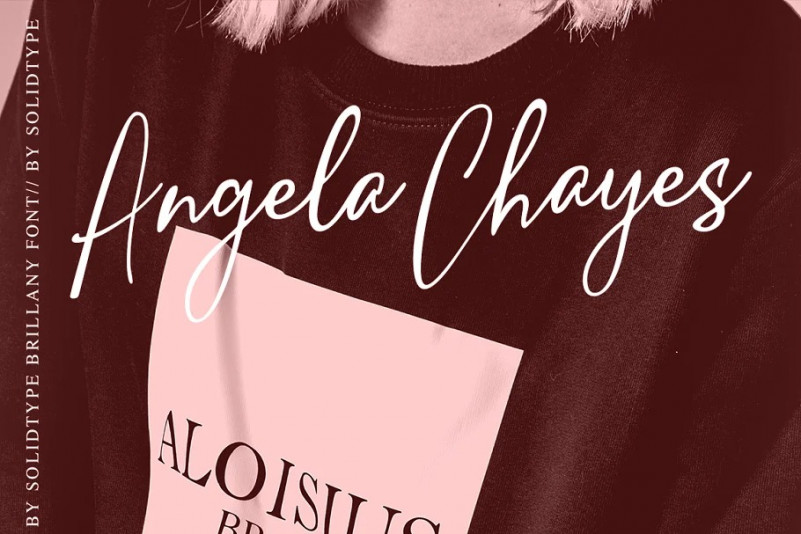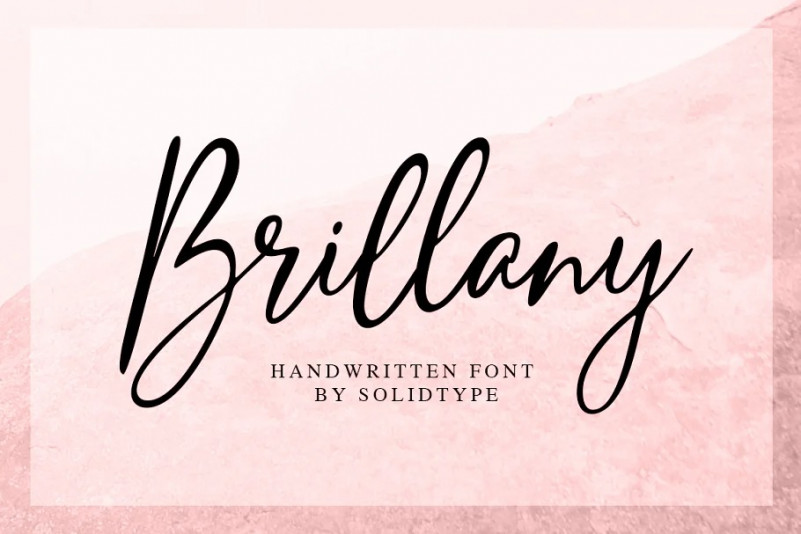
Brillany Font
Brillany Script Font is a simple handwritten script font, modern and fashionable. This elegant font is legible and looks great as a headline or in body text. This font will perfect for many different project for blogging, social media, branding, wedding invites, cards etc. Including ligatures, uppercase and lowercase, punctuation and multiple languages support.